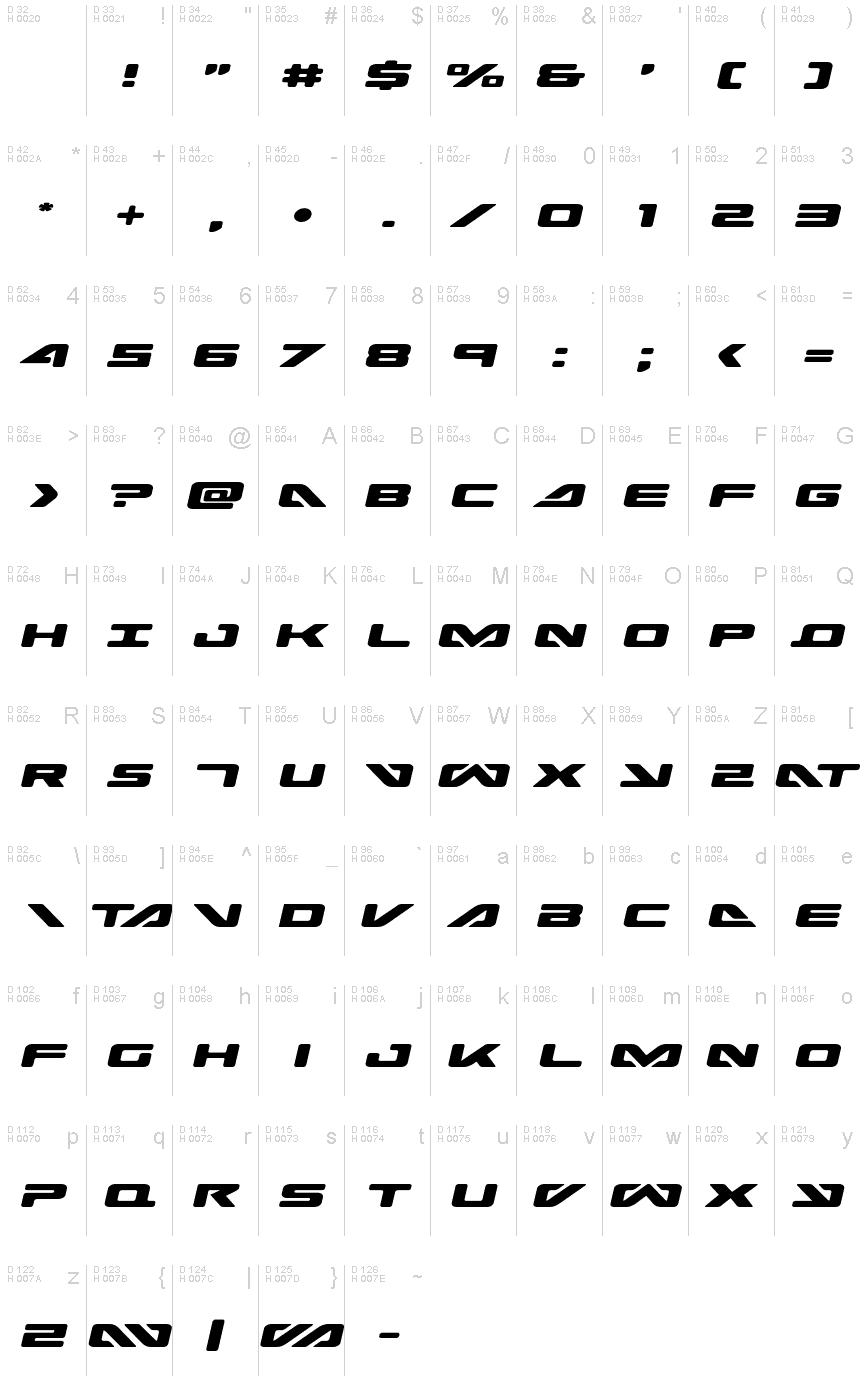
Sea-Dog Expanded Semi-Italic is a display font that offers a futuristic vibe with an extra-bold weight and ultra-expanded width. Designed by Iconian Fonts, this typeface is perfect for projects that require a bold statement, such as movie posters, book covers, and video game titles. Its unique semi-italic style adds a touch of elegance to the overall design while maintaining its edgy appearance. Sea-Dog Expanded Semi-Italic can also be used for branding projects that need to stand out from the crowd. Its wide range of versatility makes it an ideal choice for any creative project that demands attention.
Sea-Dog Expanded Semi-Italic